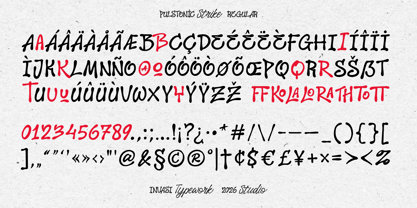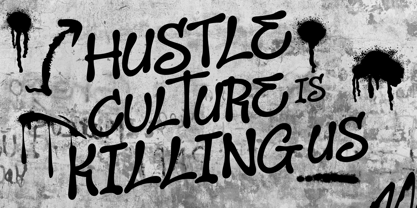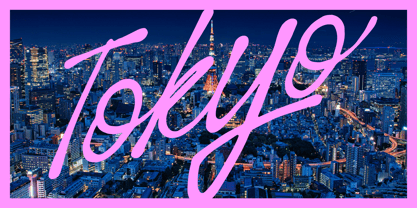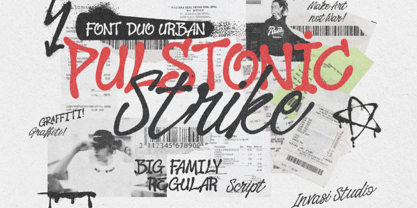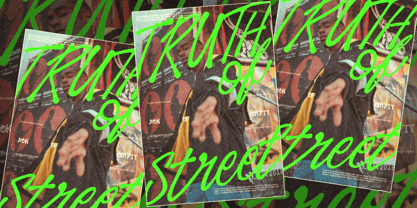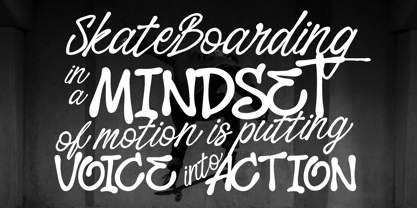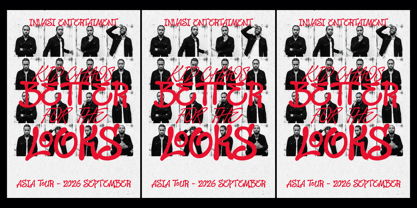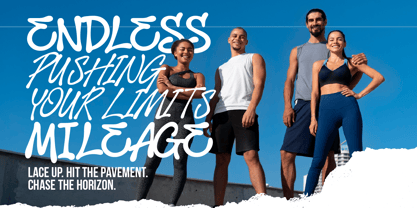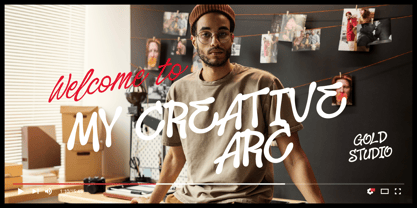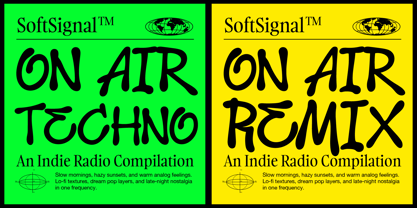
Pulstonic Strike
by Invasi Studio
The Pulstonic Strike Font Family was designed by Gha Arizal and published by Invasi Studio. Pulstonic Strike contains 2 styles and family package options. More about this family
Pulstonic Strike is a rebellious font duo packed with raw energy and unapologetic attitude. It combines two distinct styles — a bold all-caps Regular and a fast-flowing Script — inspired by street graffiti, underground flyers, indie mixtapes, and lo-fi aesthetics. Crafted for creatives who live in motion, Pulstonic Strike gives your words a loud voice and a sense of urgency. From tour posters and music artwork to skate brands and youth campaigns, this font duo captures the DIY spirit of urban life and alternative culture. The Regular cut delivers chunky graffiti-style shapes, while the Script version offers expressive hand lettering strokes that feel electric. Both styles are loaded with multilingual support, symbols, ligatures, and stylistic alternates — giving you flexibility for everything from zines to social visuals and disruptive branding.
Designers: Gha Arizal
Foundry: Invasi Studio